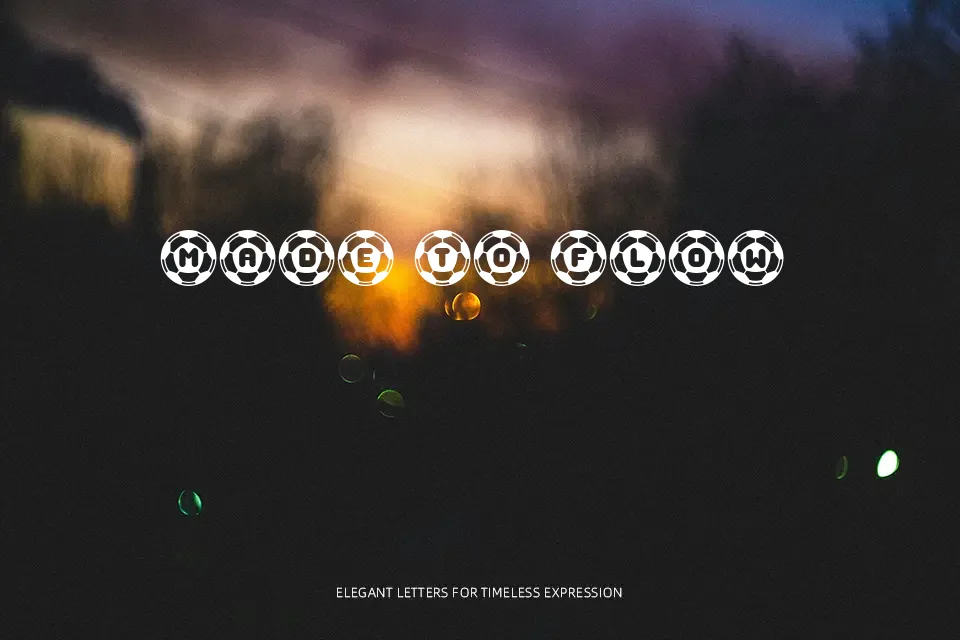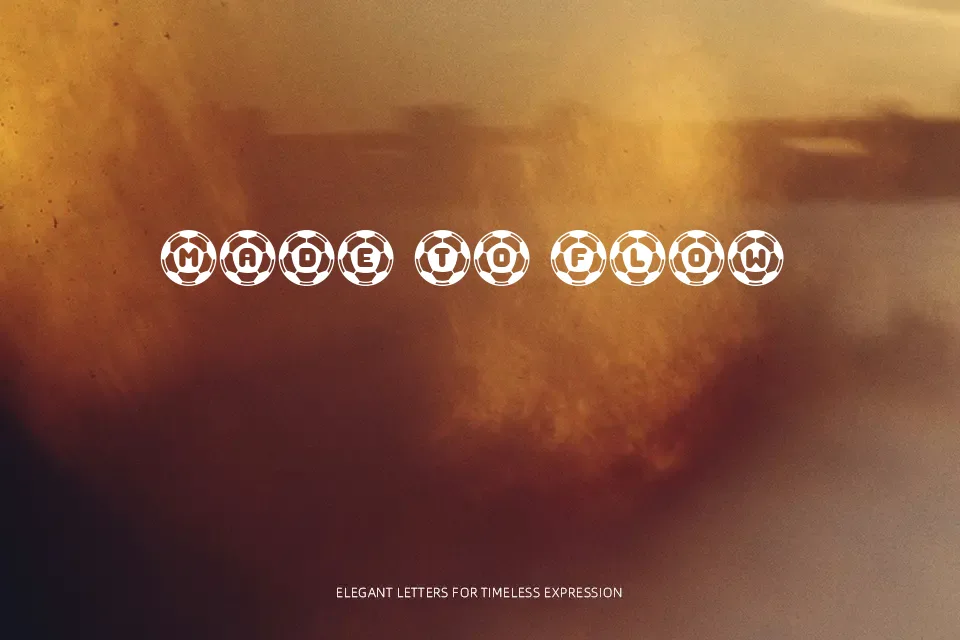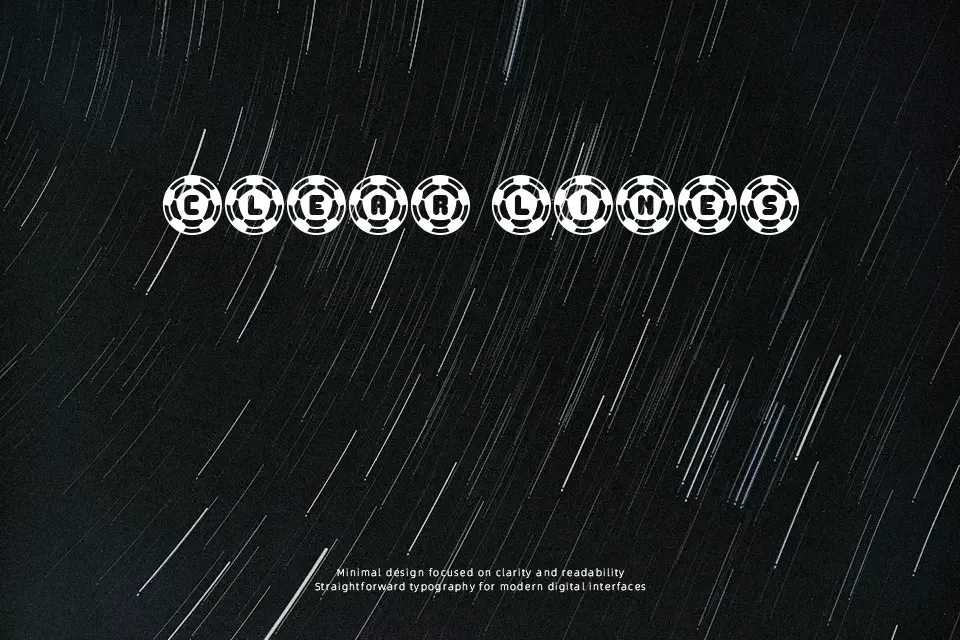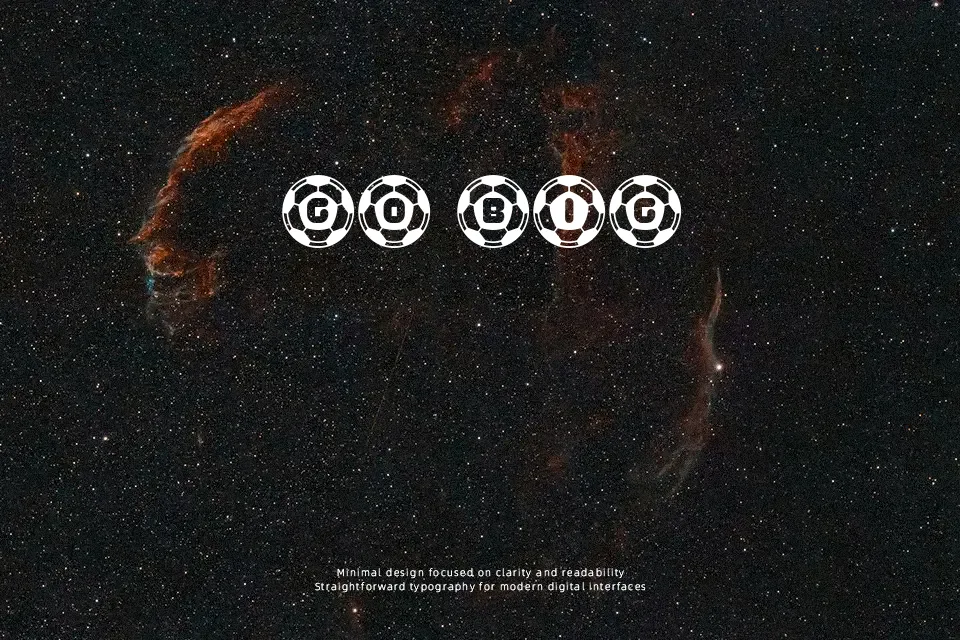
Soccer Font
Soccer uses bold decorative letterforms with soccer-ball details worked into the character shapes. The strokes appear heavy and the proportions are built for impact rather than quiet reading, while the spacing gives individual characters room to register in short words. Its uppercase forms make a strong fit for sports posters, team apparel, match-day graphics, and large logo-style titles. The decorative treatment is most effective when the type is given enough size to show its internal details. In smaller captions or longer copy, those details can make the text feel busy and less immediate to read.
Best For: sports event posters,team apparel graphics,match-day social media posts,football-themed packaging
Perfect for logo, poster, and social media, with a bold and decorative style.